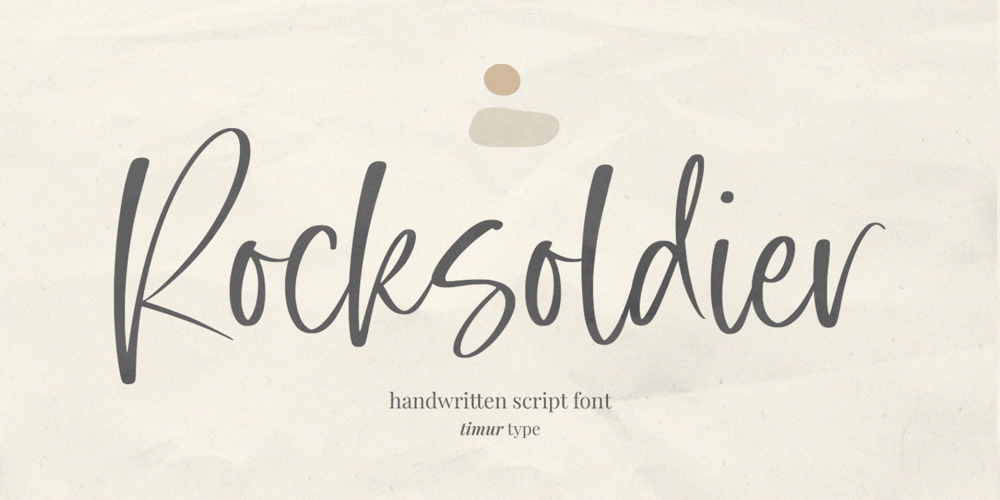
Rocksoldier Font Family was designed by Wara Sigit Tri Pamungkas and published by Timurtype. Rocksoldier contains 1 styles and family package options. Introducing by Timur typeProudly Present, Rocksoldier ✨Rocksoldier A Handwritten Script Font, which was created with great care and specially created for you 😊Rocksoldier is perfect for product packaging, branding project, megazine, social media, wedding, or just used to express words above the background.Simplesky also multilingual support.Embelish your designs with our original fonts. Enjoy the font 😉 Thank you!